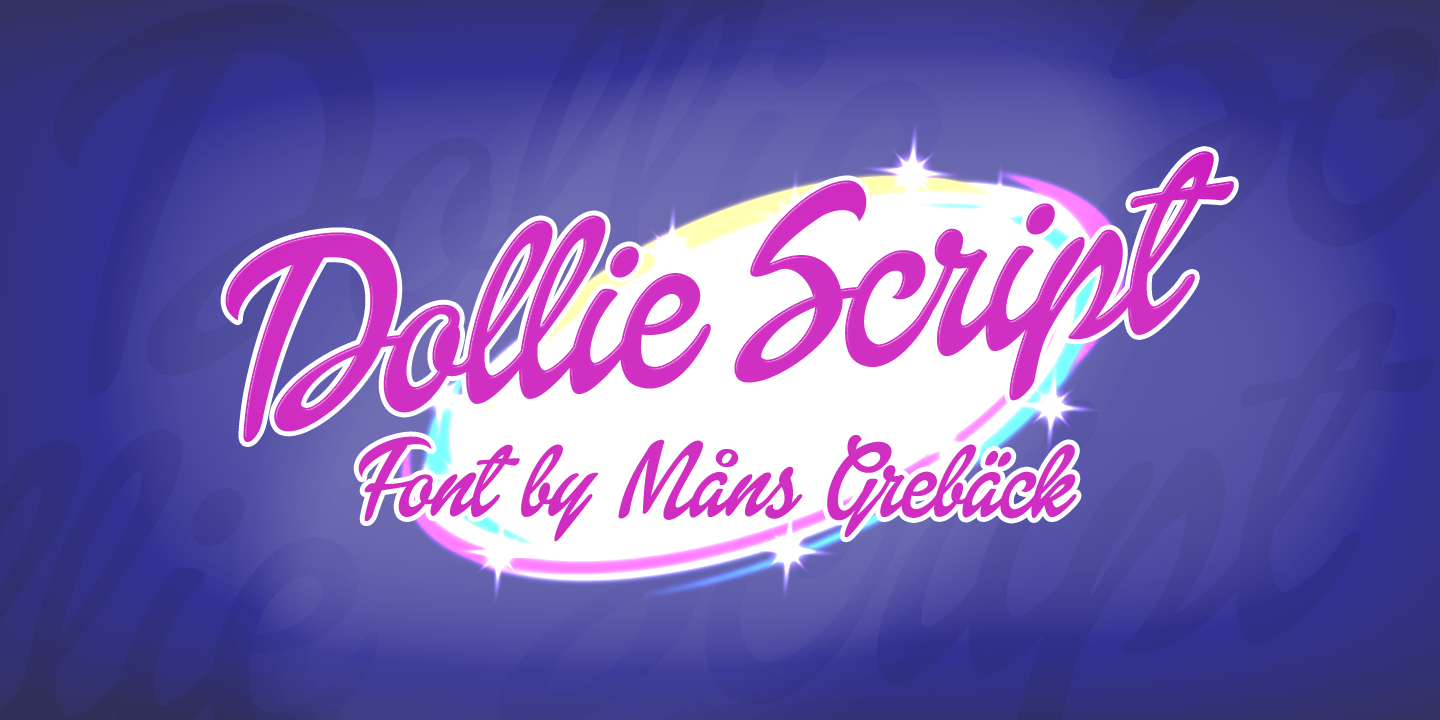
Dollie Script Font Free Download is a charming, elegant handwritten script typeface that combines smooth curves and sophisticated details. Perfect for wedding invitations, greeting cards, branding, logos, and other creative projects, Dollie Script Font brings a personal, artistic touch to your designs. With its flowing strokes and graceful letterforms, it is ideal for any project that requires a touch of romance and refinement.
With Dollie Script Font Free Download, you’ll receive a complete set of uppercase letters, lowercase, numbers, and essential punctuation, offering flexibility for both print and digital applications. Whether you're designing invitations, crafting custom logos, or creating social media graphics, this font ensures readability while adding a beautiful handwritten flair.
Add elegance and warmth to your creative projects with Dollie Script Font Free Download. Its delicate, flowing design makes it a perfect choice for designs that need a sophisticated, personal, and romantic feel.